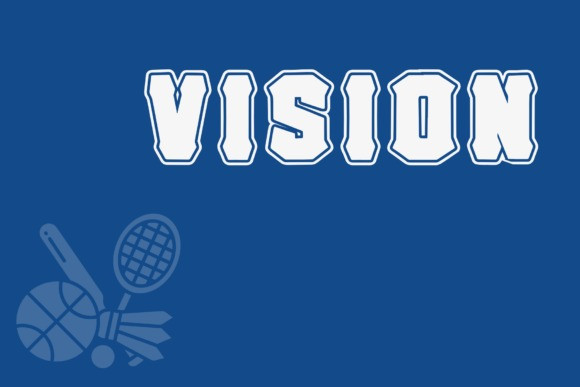
Hell Forge College Font
Hell Forge College Font brings tough varsity energy with an industrial edge. Letters feel bold, upright, and easy to read. Angled cuts add grit without hurting clarity. Because spacing is tuned for headlines, your layouts build fast in apparel, stickers, banners, and thumbnails. If you need a college font that looks fierce on game day, this one delivers.
Where this college font shines
Set punchy phrases like Game Day, Forge Pride, or city initials. Then add stitch edges, outline layers, or soft shadows to echo classic patches. Since the forms are sturdy, vinyl cuts and screen prints stay crisp on jerseys, caps, and hoodies. As a result, your shop can launch full sets for clubs, tournaments, and pep rallies in minutes.
Fast setup, forged results
Install the files and start designing in Canva, Photoshop, and Illustrator. Clean paths keep decals, engraving, and embroidery-friendly mockups sharp. Moreover, the compact build fits tight spaces like sleeve labels and helmet numbers. Next, try palettes such as coal and chrome, scarlet and bone, or navy and steel to lock in a strong identity.
Design tips for Hell Forge College
Keep copy short and let the letterforms lead. Pair the headline with a neutral geometric sans for captions. Meanwhile, try inner lines, sticker borders, or a light grain for texture. Because this college font is rugged, metallic foils and patch textures look great on product photos. However, avoid long phrases on tiny tags. Names, numbers, and punchy words hit hardest.